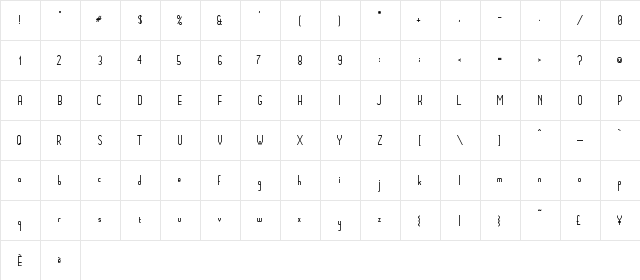
RM Thicky Regular
| Designer | Ray Meadows |
Design Context for RM Thicky Typeface
RM Thicky takes a measured approach to typography — its balanced proportions and neutral character make it a reliable workhorse for both digital and print work.